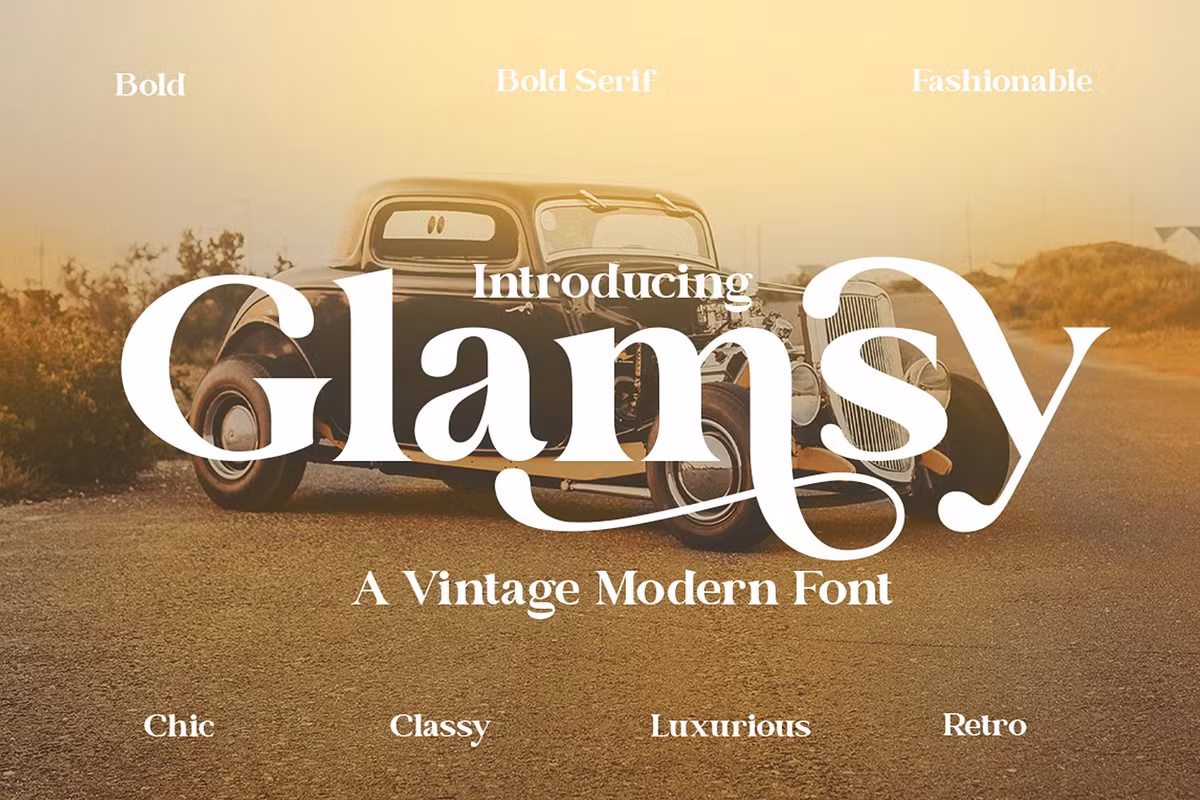
Vintage Modern Font Free Download
Vintage Modern Font Free Download is a stylish and versatile typeface that blends classic vintage elements with contemporary design. Featuring clean lines and geometric shapes combined with subtle retro flair, this font is perfect for logos, branding, posters, packaging, editorial designs, and digital projects that need a mix of nostalgia and modernity.
The font offers a unique balance of sophistication and charm, making it ideal for both elegant and bold designs. Whether you're creating vintage-inspired visuals or contemporary, minimalistic branding, Vintage Modern brings a timeless yet fresh appeal to your typography.